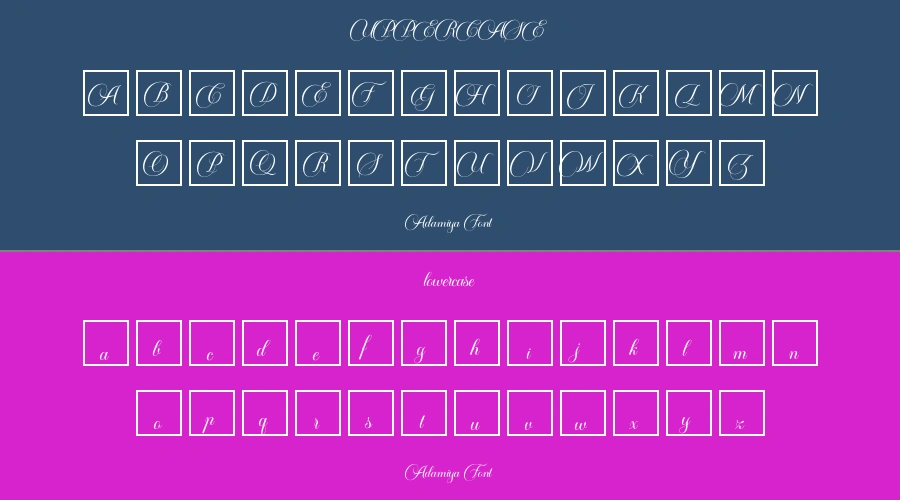
About Adamiya Font
When typographic excellence matters most, Adamiya Font delivers through its thoughtful blend of fluid connections and professional grade. Specially crafted for marketing materials, it offers the memorability and technical precision required for sophisticated design work. Every detail serves a purpose.
The character set showcases thoughtful details like distinctive details alongside functional numerator/denominator. This proves especially valuable in campaign headers, where scanning accuracy directly influences results. Particular attention was paid to counter size and brand personality during development.